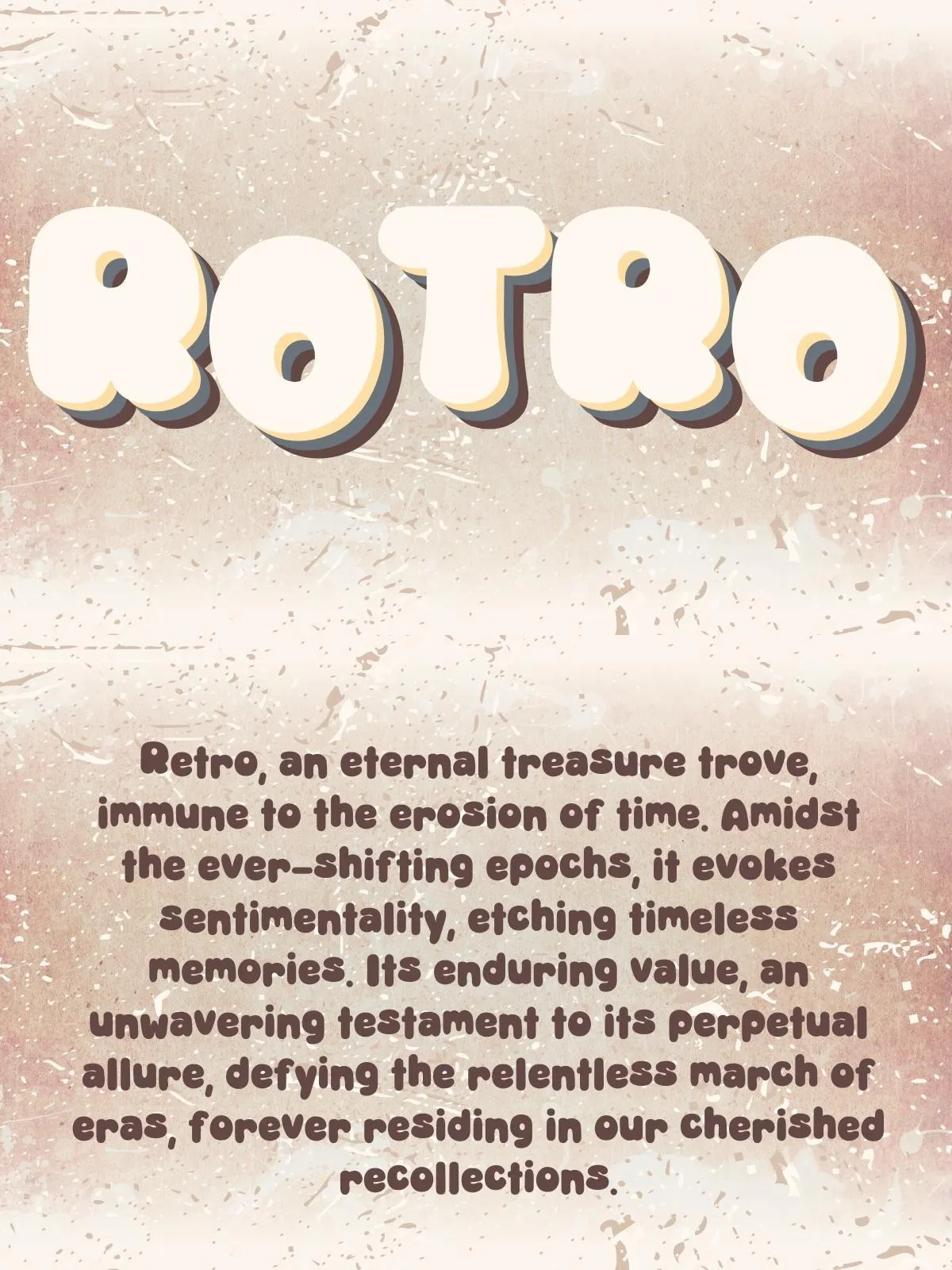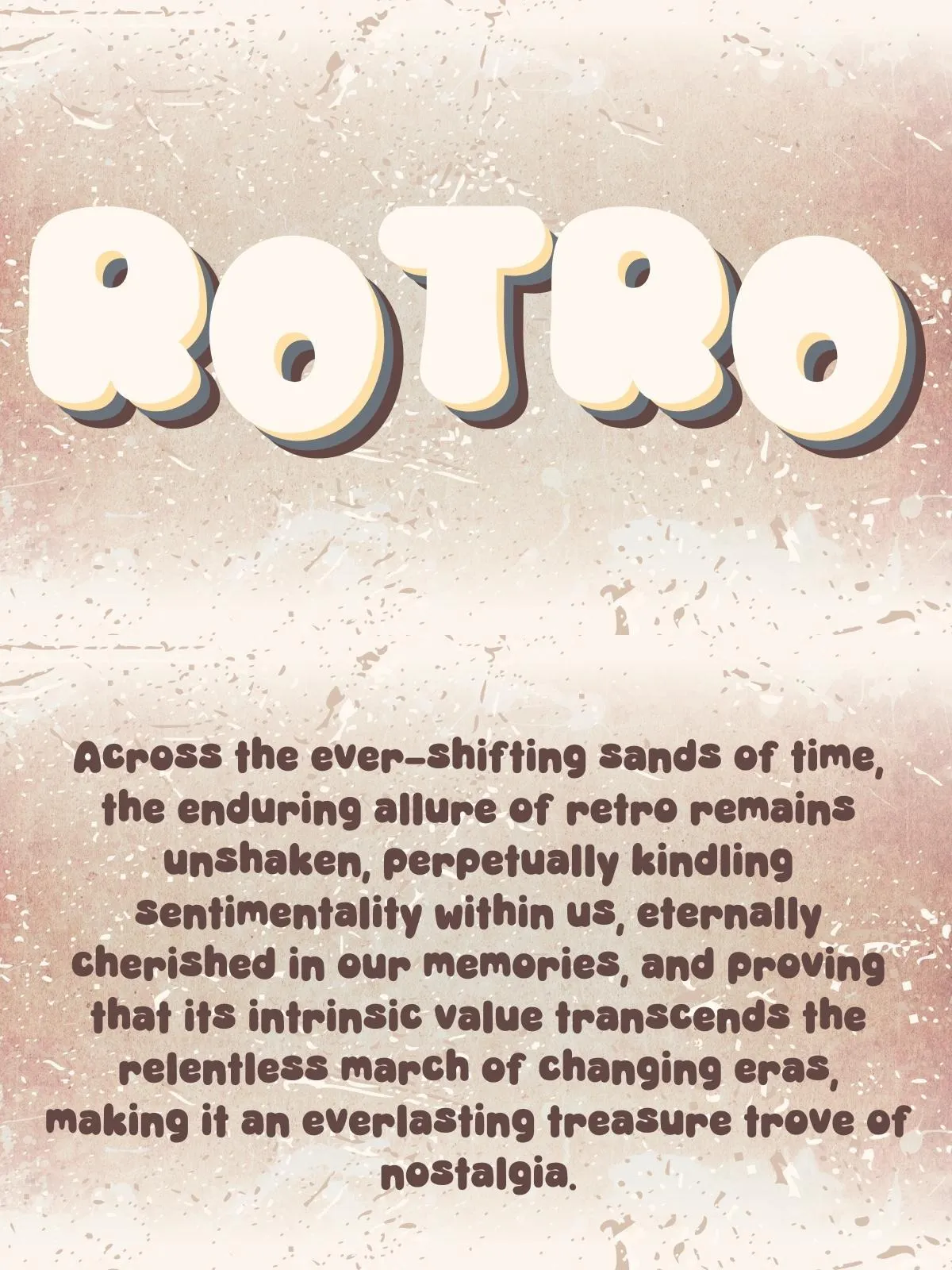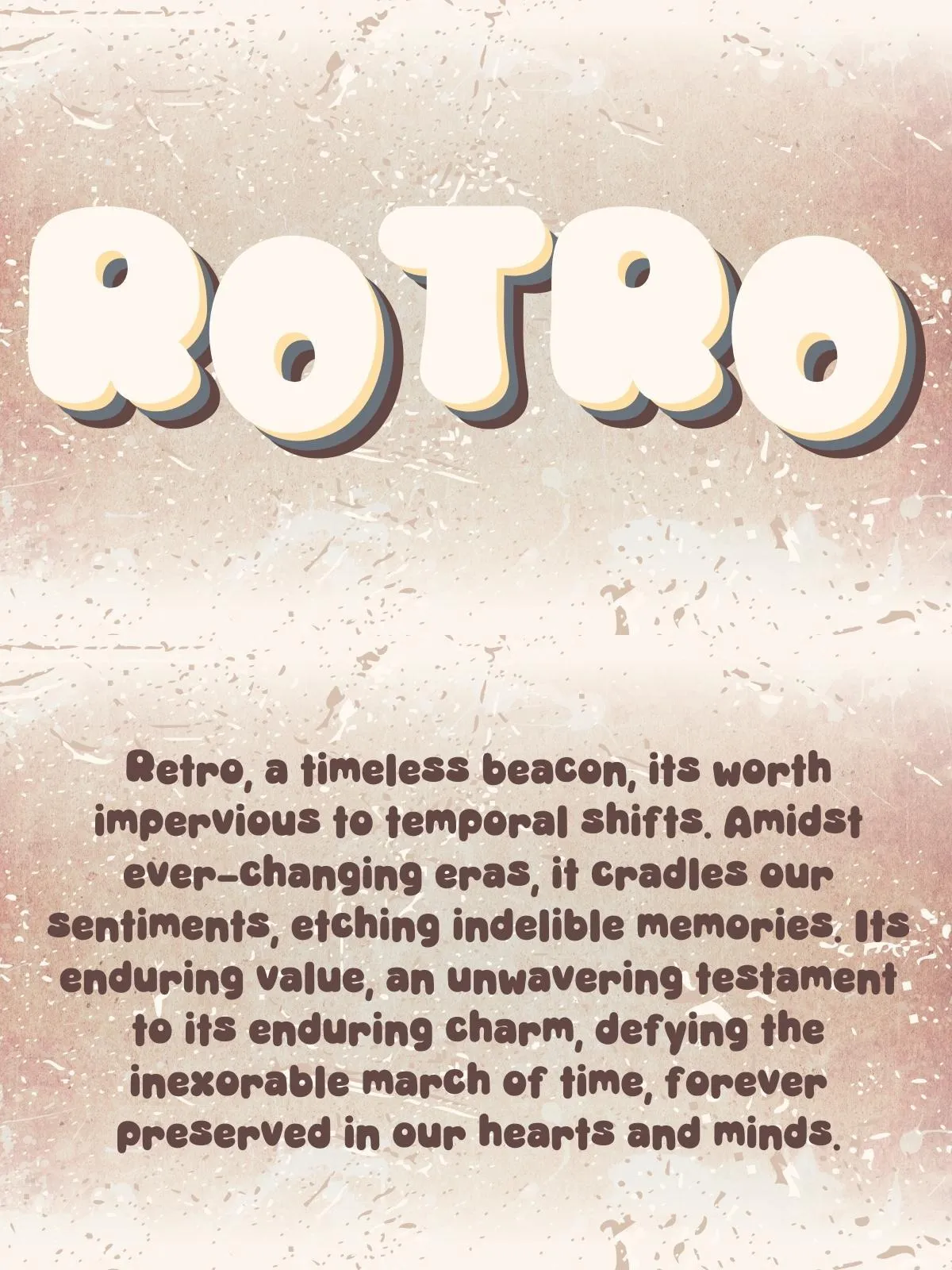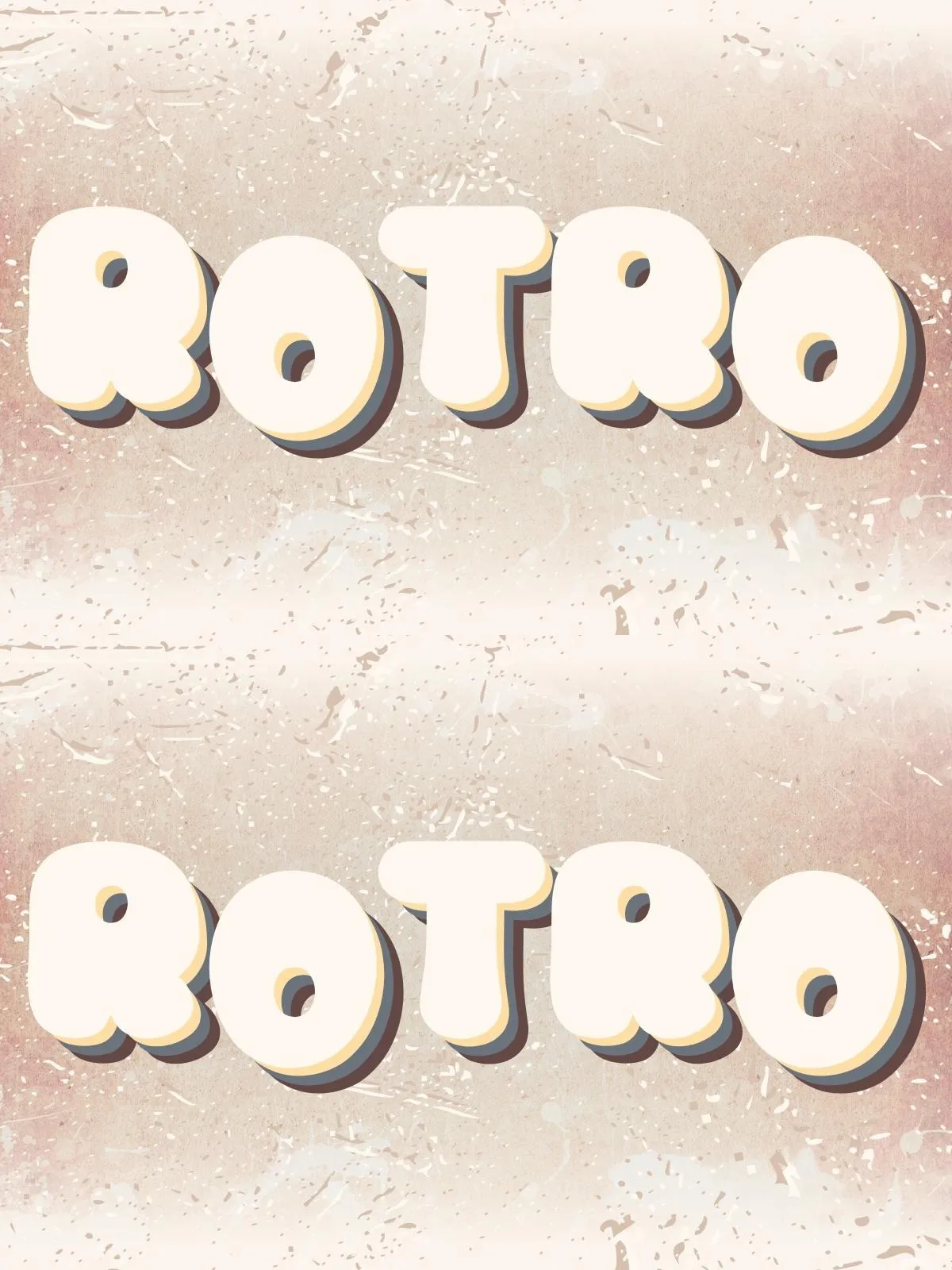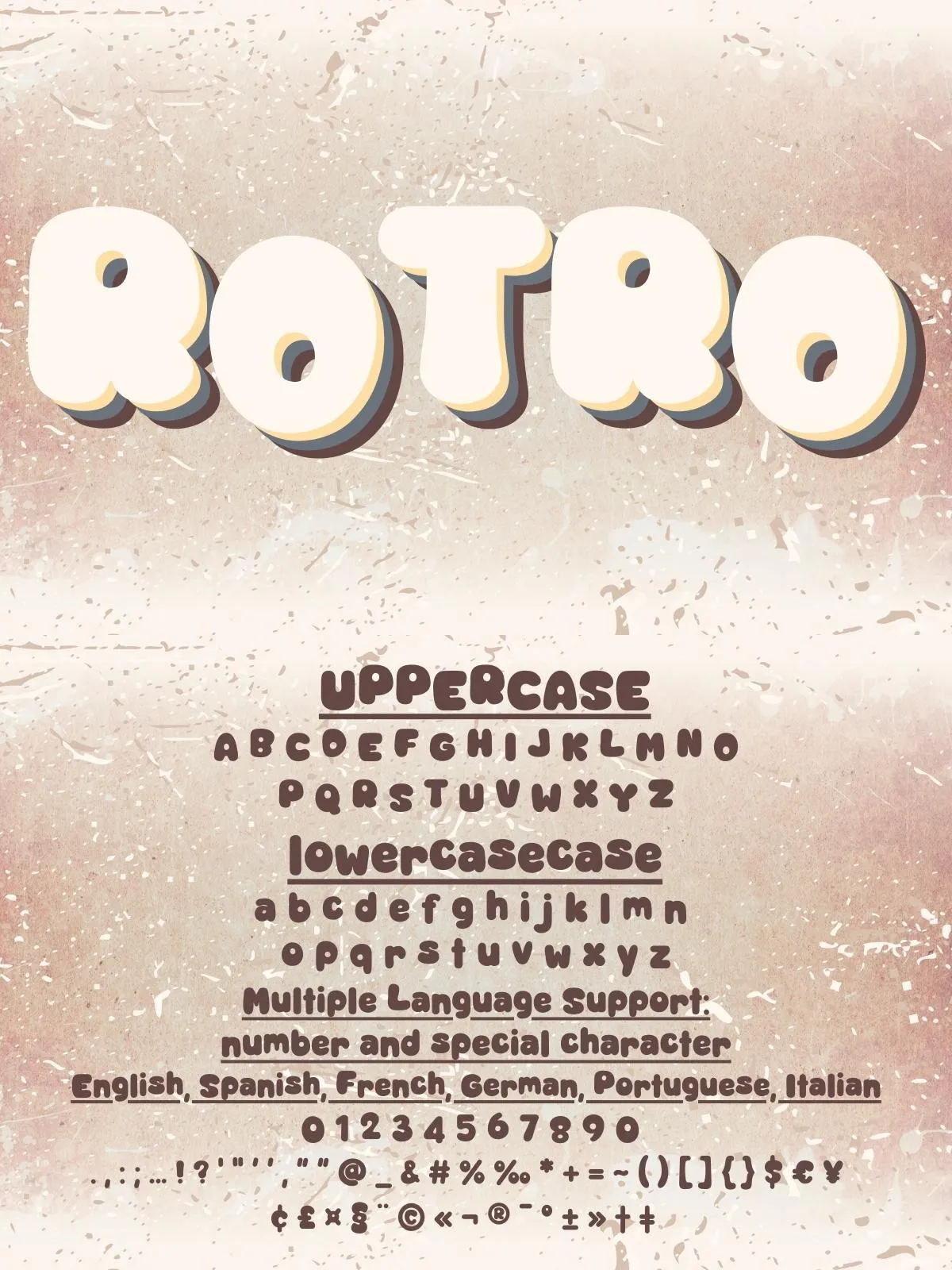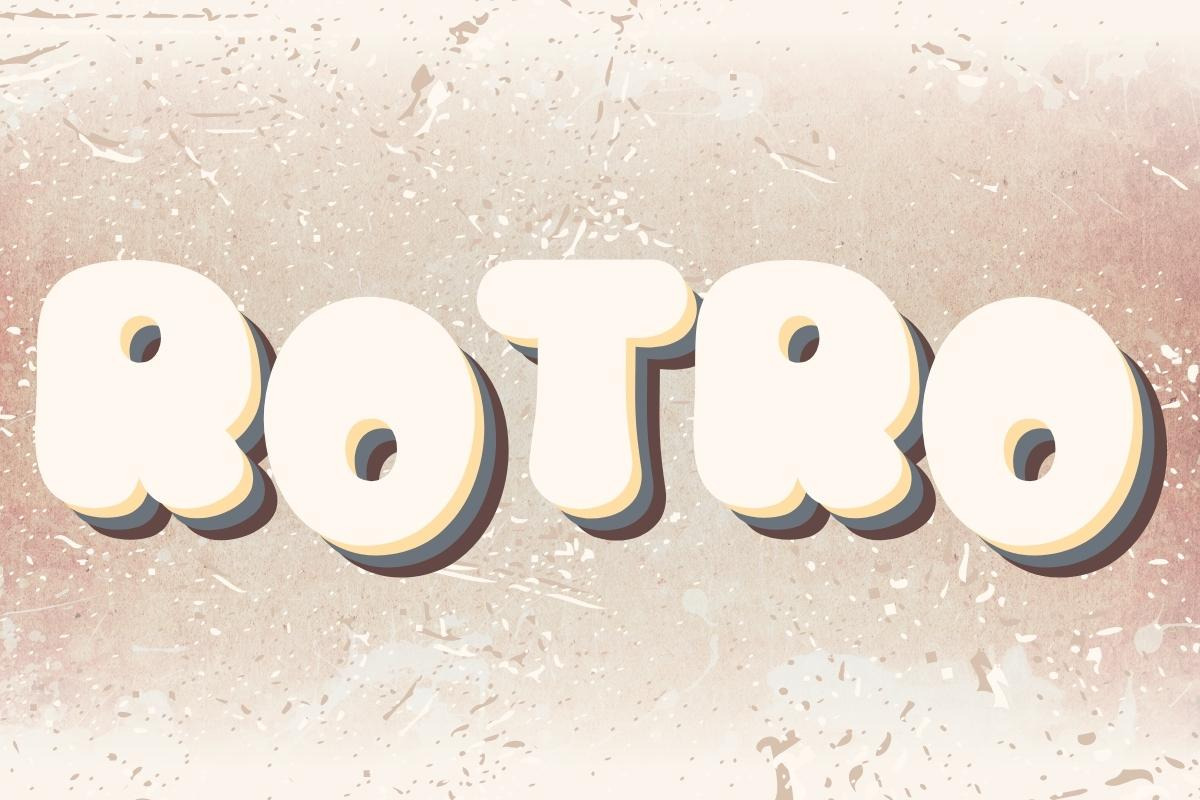
Bring the golden era of design back to life with RETRO — a bold, expressive font family that redefines nostalgia with contemporary precision. These aren’t just old-style characters; they’re reimagined classics, engineered for today’s creatives who crave authenticity, flair, and fearless originality.
Whether you’re launching a retro-themed product line, designing a music festival poster, crafting a vintage-inspired app interface, or building a nostalgic brand identity, RETRO fonts deliver instant atmosphere. They don’t just say “old school” — they feel like it.
Why RETRO Fonts Are the Ultimate Design Catalyst
Designers don’t just use retro fonts to mimic the past — they use them to activate emotion, build identity, and command attention. RETRO is more than a typeface; it’s a storytelling tool.
- Authentic Retro Aesthetics — Clean yet quirky, bold yet playful, RETRO captures the essence of 1980s neon signs, 1990s skate culture, and mid-century advertising with precision and personality.
- Versatile Styling Options — From sleek, minimalist renditions to exaggerated, grungy textures, each style adapts seamlessly across digital and print media.
- Dynamic Character Set — Includes extended glyphs, alternate characters, ligatures, and stylistic sets for limitless customization.
- Multilingual Support — Features Latin, Greek, and Cyrillic characters for global creative use.
• Ideal for High-Energy Creative Projects
RETRO fonts are built to elevate projects that need to stand out — and mean something. Use them to:
- Create bold, attention-grabbing logos for music, gaming, and lifestyle brands
- Design packaging with vintage flair that pops on shelves
- Build editorial layouts that evoke mood, drama, and cultural memory
- Enhance web headers, landing pages, and social media graphics with instant vibe
- Develop app interfaces or games that tell a story through typography
Powerful Design Features, Zero Limitations
RETRO is not a simple font — it’s a creative ecosystem. The package is packed with advanced typographic features that turn your design workflow into a playground of possibilities:
- Multiple Weights and Styles — Regular, Bold, Italic, Condensed, and more. Scale your message with confidence.
- Stylistic Alternates — Swap out letters for unique variants, giving each word a personalized touch.
- Contextual Ligatures — Automatically improve letter pair flow for a polished, professional finish.
- Swash and Ornamental Characters — Add dramatic flair to headlines or signatures with elegant flourishes.
Every detail is crafted to empower your vision — without requiring technical expertise.
Transform Your Next Project with the RETRO Advantage
There’s a reason why retro aesthetics never fade — they resonate. RETRO fonts don’t just look vintage; they feel authentic, nostalgic, and full of life.